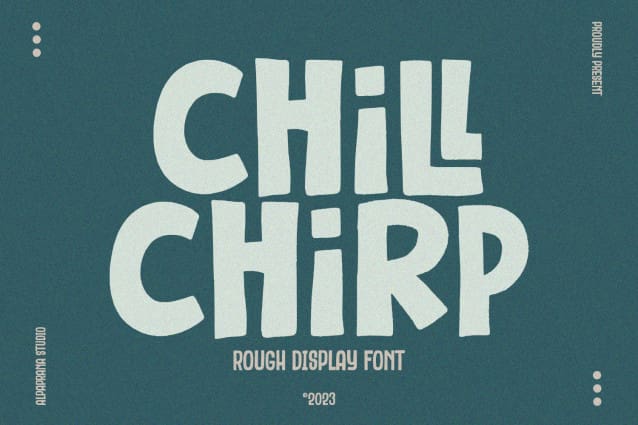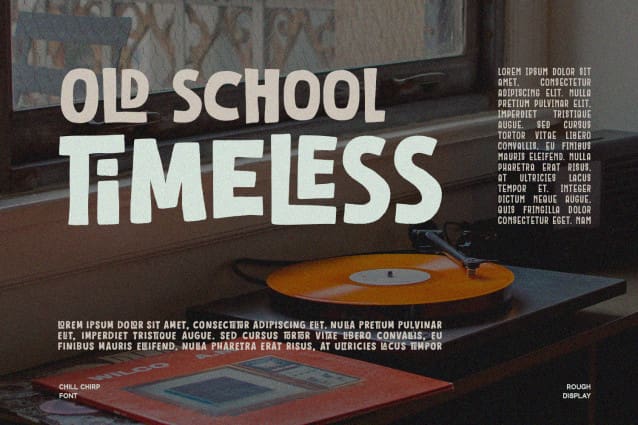
Chill Chirp Font
Chill Chirp Font is a rough display font with authentic and retro feels. It will be perfectly used for Branding, Logo Design, Lettering, Logotype, Clothing, Poster, magazine, packaging, posters, shopping bags, t-shirts, book covers, photography, special events and other design project.